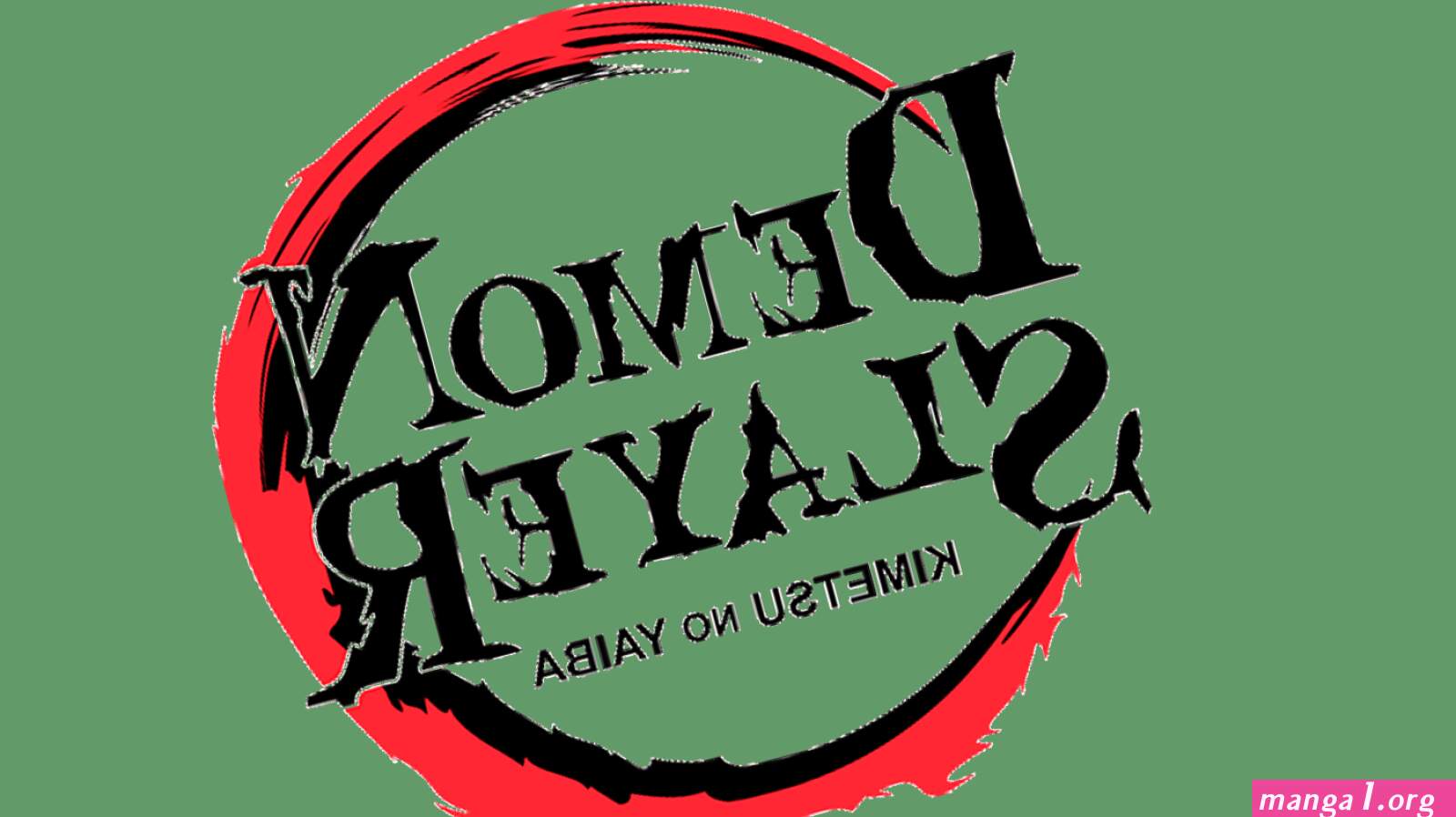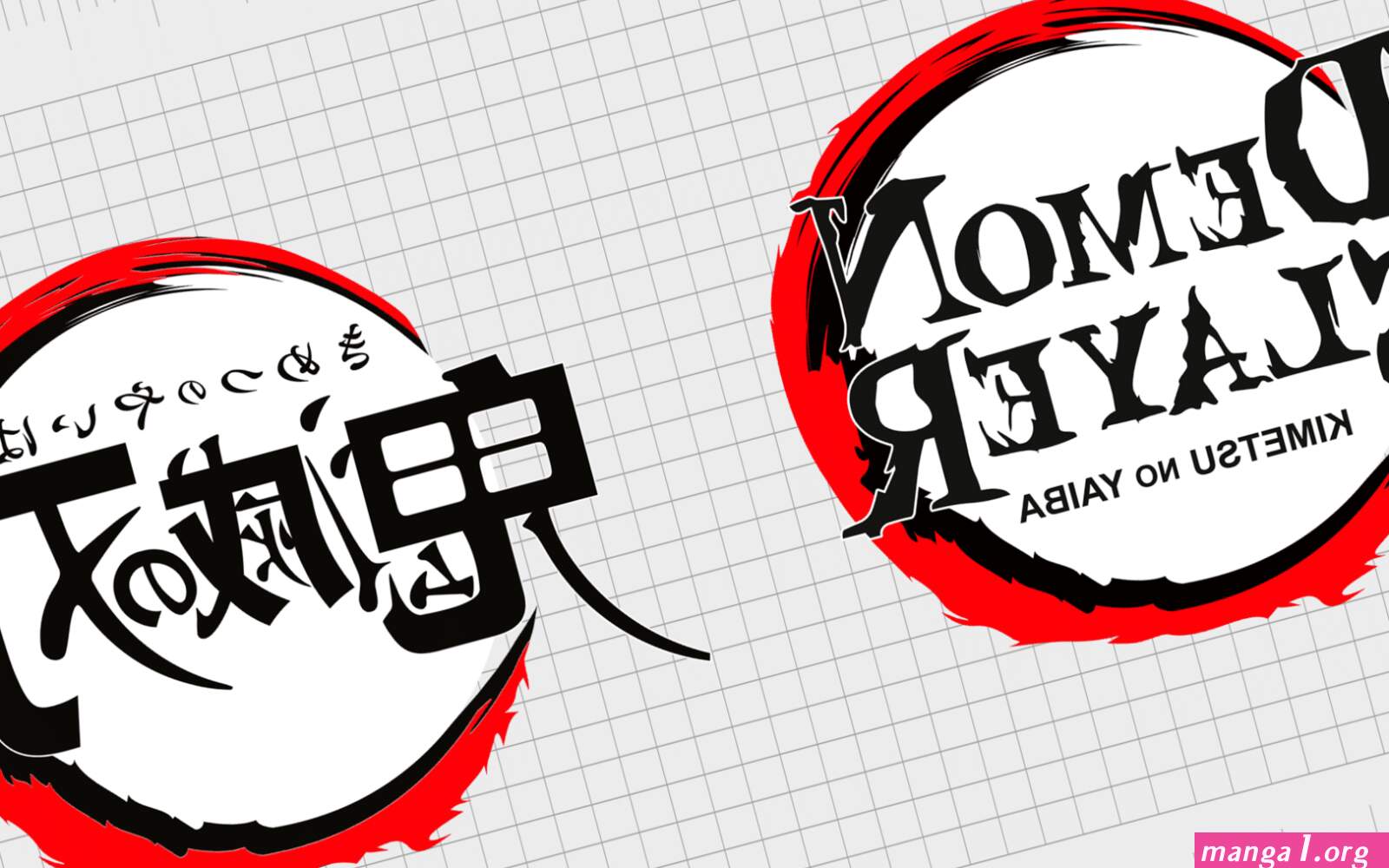
Demon Slayer Font is an animated Japanese dark fantasy period action movie set in 2020 that takes inspiration from Koyoharu Gotouge’s manga series Demon Slayer: Kimetsu no Yaiba.
Looking for the Demon Slayer font? In this wave of animated movie hype, “Demon Slayer” has made its way all over the world. Even the logo font itself has a perk of its own. As most of you anime fans are aware, there is a Japanese manga series called that has also been made into a movie. Due to its popularity, the logo lettering for the movie has become very popular.
The Demon Slayer font was created through the inspiration of the favorite dark and mystic Japanese manga and anime series called “Demon Slayer: Kimetsu no Yaiba.” It takes to the spirit of the series with the supernatural topics, and those acted scenes, so all admiring actors much adore it. Thus, it is very much loved by actors for fan art, merch, and other content.
How much do you know about the Demon Slayer logo? While the Demon Slayer symbol might not have been around for a particularly long time, the image has still captured the attention of countless Manga fans around the world.
Demon Slayer is a Japanese manga series illustrated and written by Koyoharu Gotouge. In recent years, the manga has expanded into different mediums, including a 26-episode name television series produced by Ufotable.